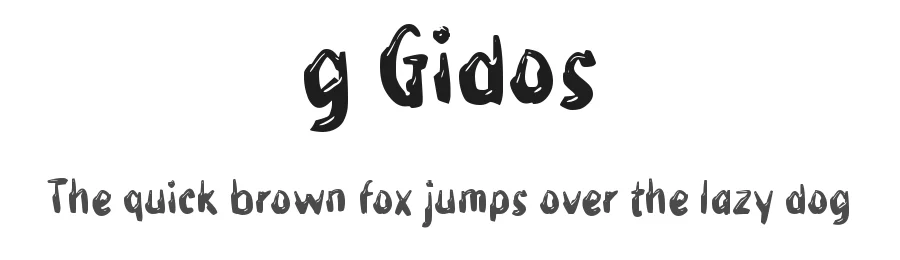
About Shadow Beamer Font
Balpirick Studio
Shadow Beamer ships with 1 OpenType feature you can switch on in apps that support them (Illustrator, InDesign, Affinity, Figma, CSS font-feature-settings).
Shadow Beamer Font is a decorative font that shines as a display or heading face. Pair it with a clean sans-serif or serif font for body text β the contrast creates a clear hierarchy while the two styles stay balanced and easy to read.